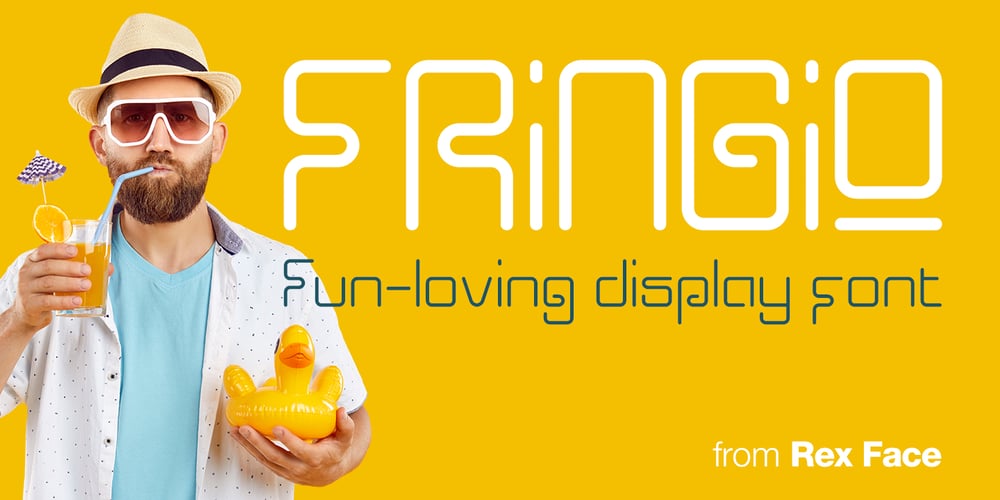
Fringio Font Family was designed by Tim Rex and published by Rex Face. Fringio contains 1 styles and family package options. Fringio is a fun-loving sans-serif display font. Key characters are formed with curved, flowing lines, resulting in some pleasing word forms. Fringio is great for branding, headlines, signage, social media and more.